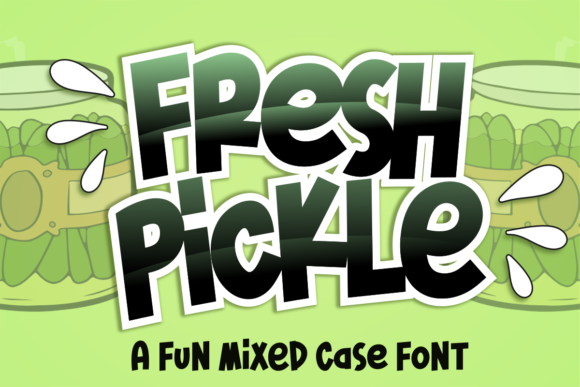
Journey into the world of fonts and discover Fresh Pickle, a remarkable display font that sparks imagination with its playful and cartoonish charm. This unique font, crafted by the talented Deedeetype, transports you to a realm of whimsy and creativity.
Fresh Pickle is not merely a font; it's an adventure for your designs. Its chunky letters dance across the page, captivating the eyes of young and old alike. Each character is a work of art, bursting with personality and brimming with energy.
Unleash your creativity with Fresh Pickle and watch as your designs come alive with vibrancy and cheer. Whether you're creating posters, invitations, social media graphics, or merchandise, this font will add a touch of magic to your work.
With Fresh Pickle, you can:
* Captivate young readers with its playful and engaging style, making learning an enjoyable experience.
* Bring your designs to life with its energetic and expressive characters.
* Create eye-catching headlines and titles that command attention and draw readers in.
* Design cheerful and inviting posters and flyers that entice people to take notice.
* Craft unique and memorable logos that reflect the playful spirit of your brand.
Fresh Pickle is more than just a font; it's a gateway to a world of limitless creativity. Embrace its playful charm and let your imagination soar.